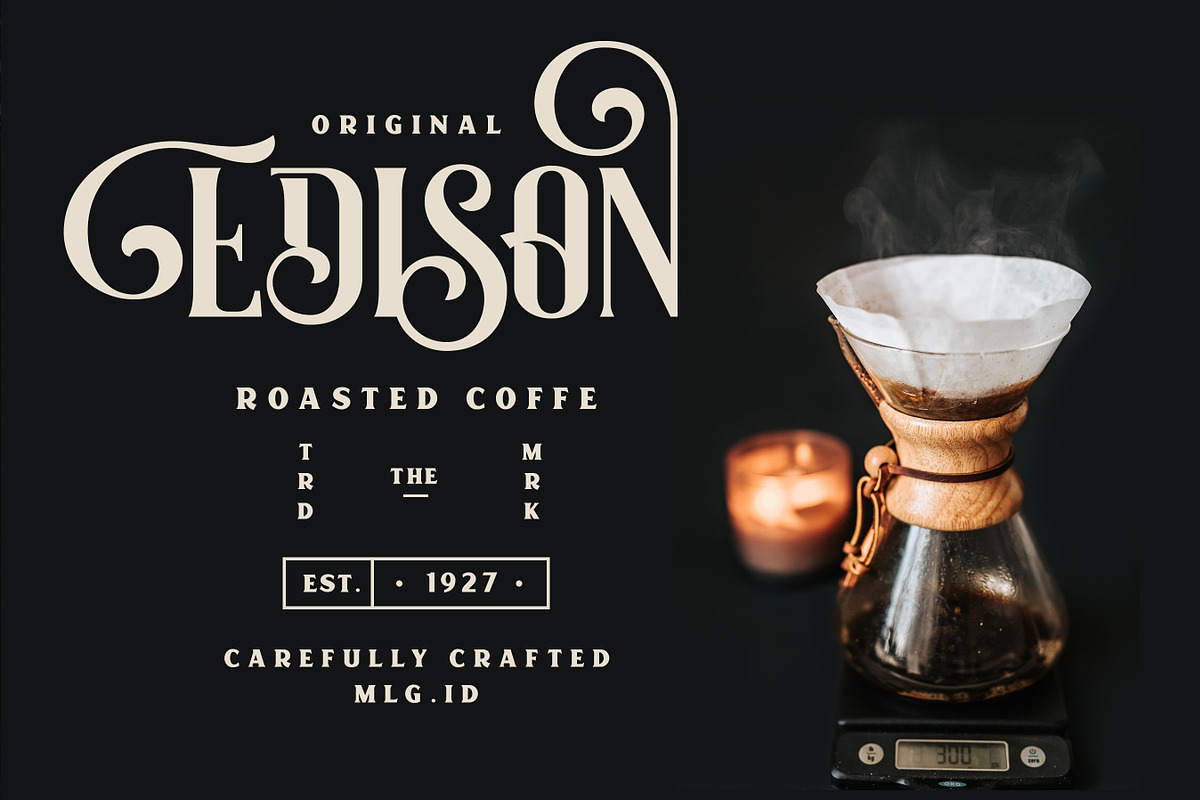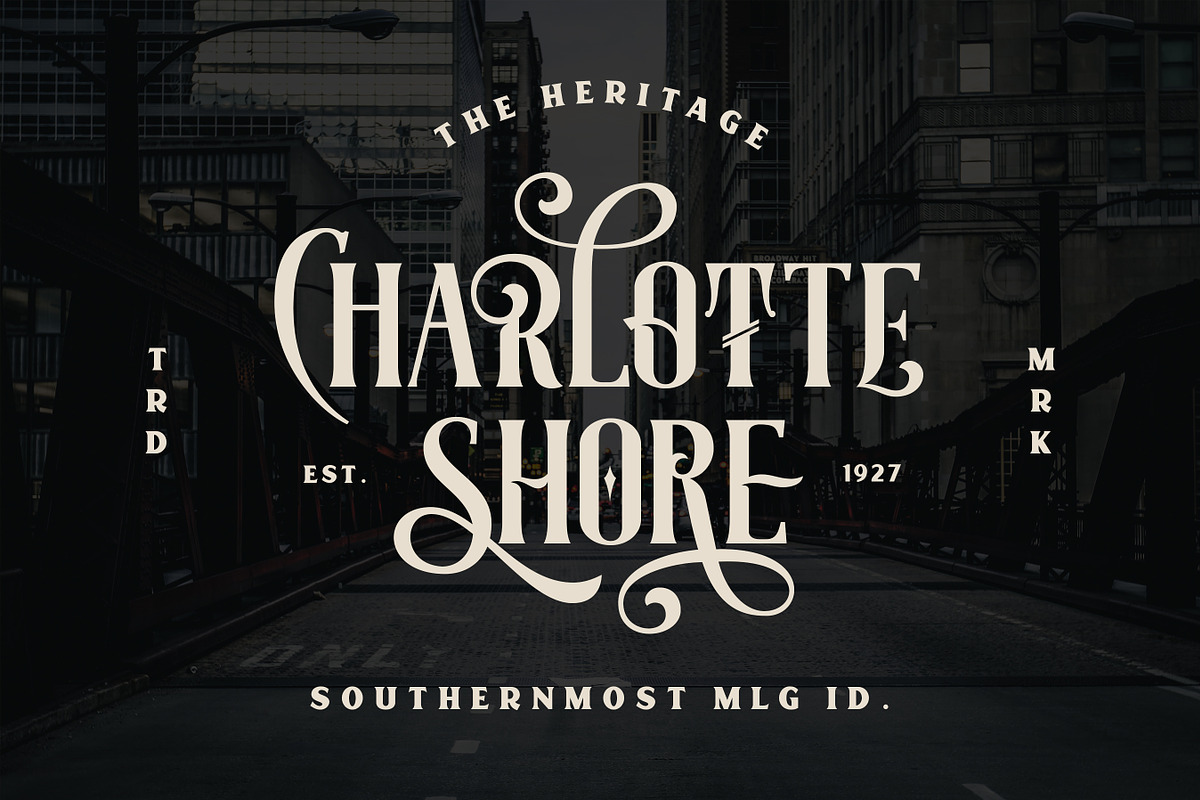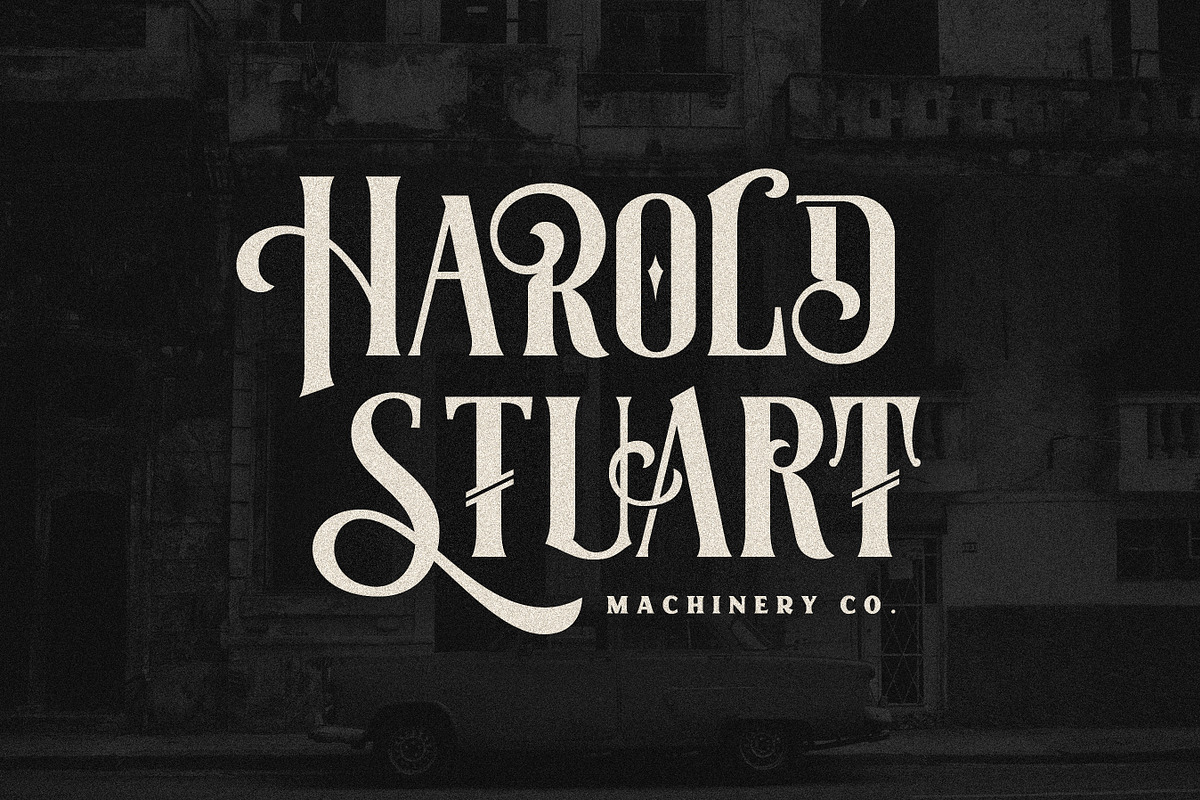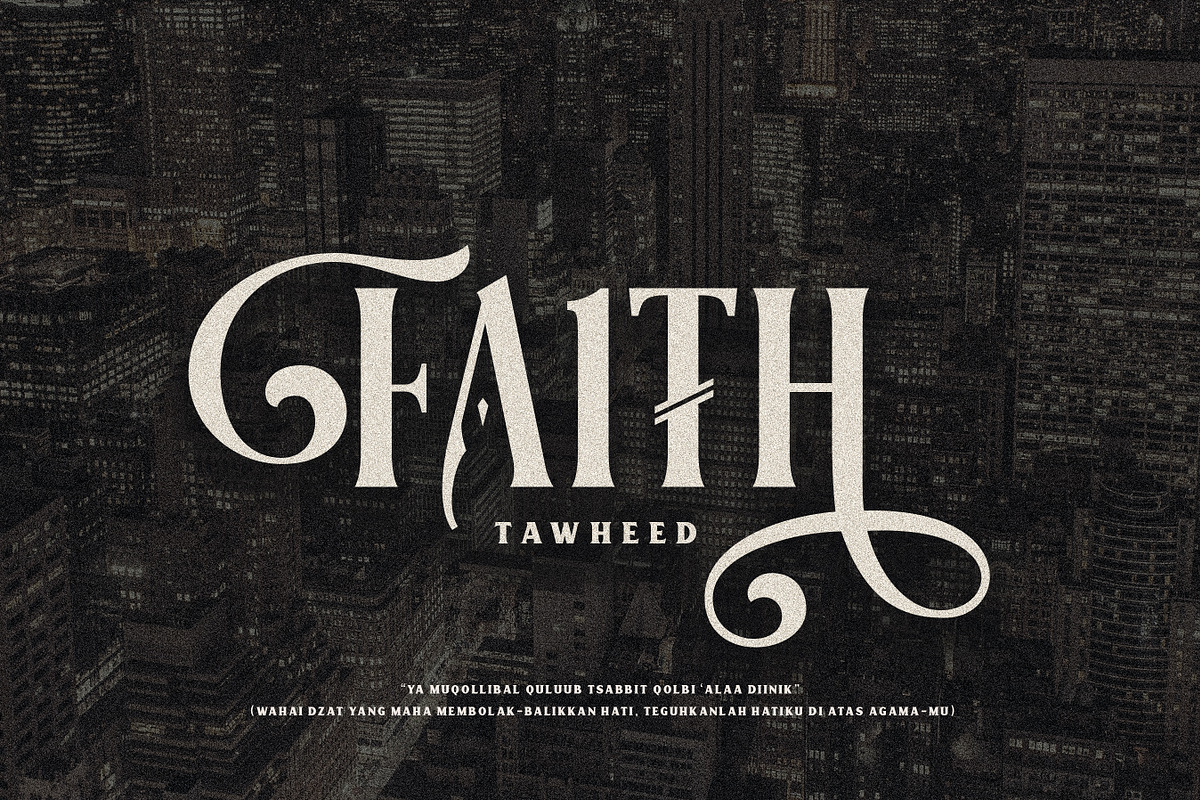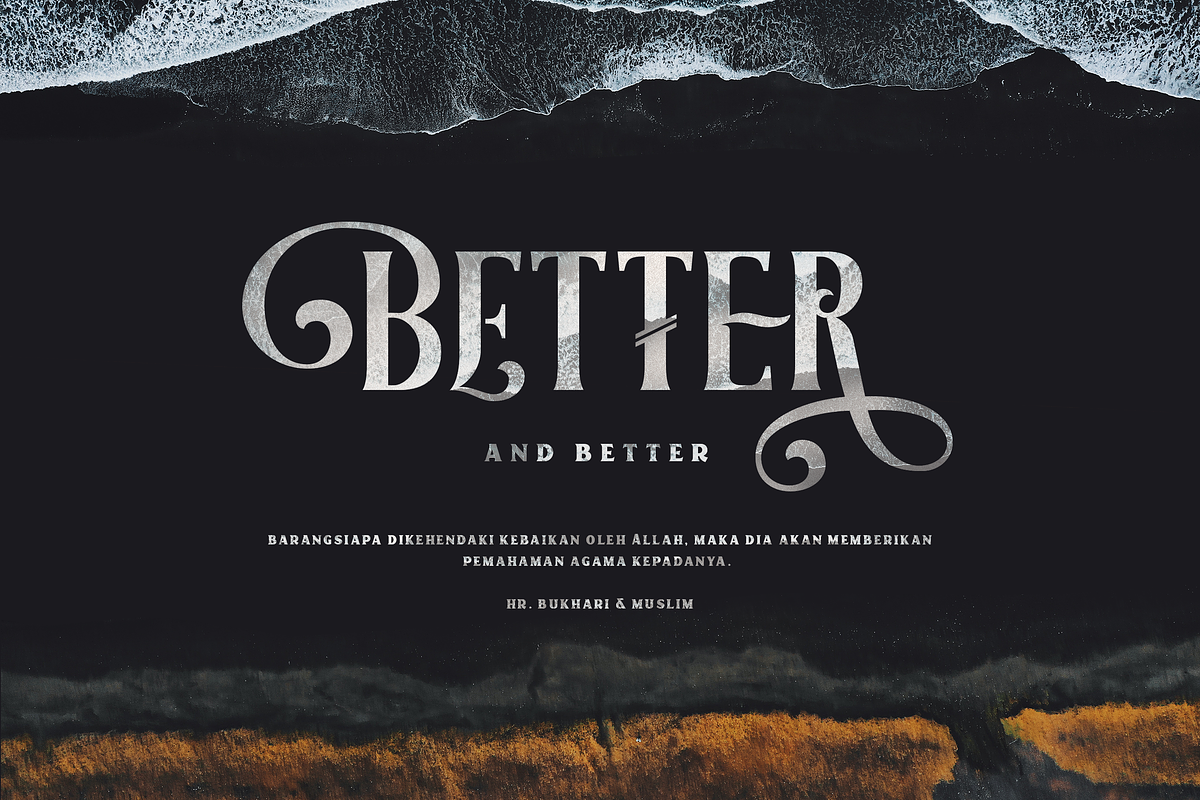
Moalang X
Moalang X is Lite version of Moalang Pro. in this version you'll get extra swashes (only in this version)
this vintage display font come with unique glyph combination to create fresh look on your project. with tons of cool Alternates Characters and OpenType Features, there's so many possibilities combination.
Moalang X Features :
- Stylistic Set 05-13
- Titling Alternates
- Suitable for Headlines, Logotypes, Signs, Posters, Letterhead, T-Shirt and many more.
There are more than 338 glyphs in the font including Stylistic Sets, Ligatures, Titling Alternates Swashes etc. Stylistic Sets and Titling Alternates in some characters that allows you to mix and match pairs of letters to fit on your design.